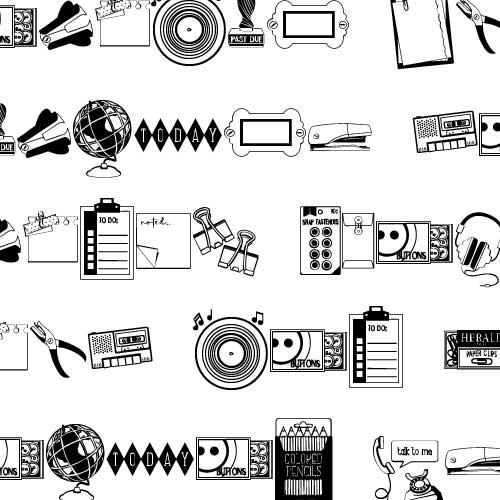
DB For The Record - Too - DB
This fun doodlebat font features 26 vintage and retro style office imagery. Perfect for cards, crafts, gifts, Mother's Day, planner stickers, scrap book pages, decor and more!